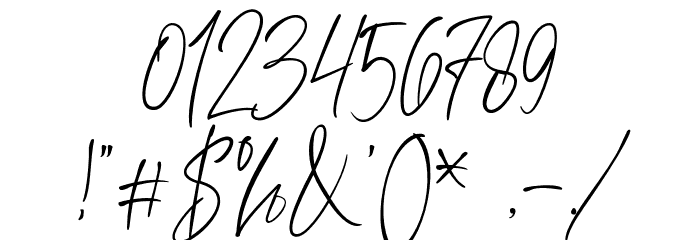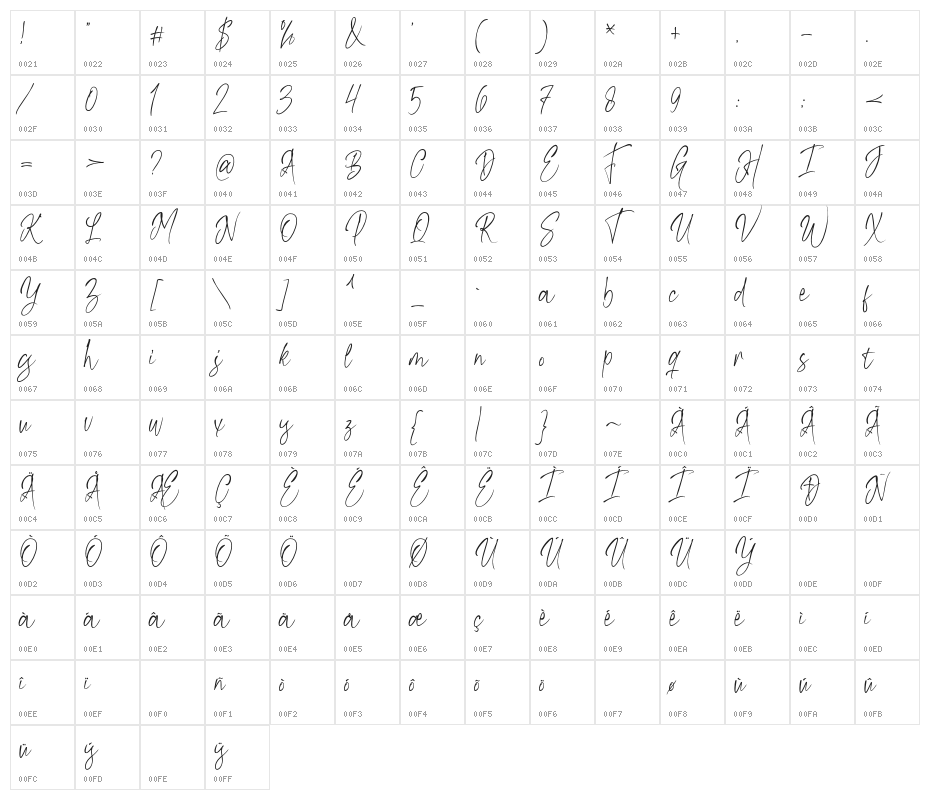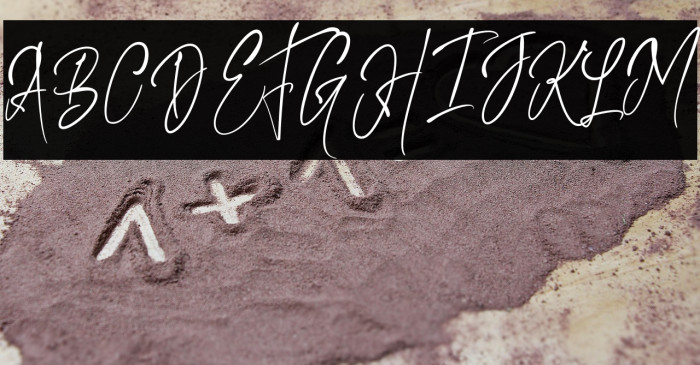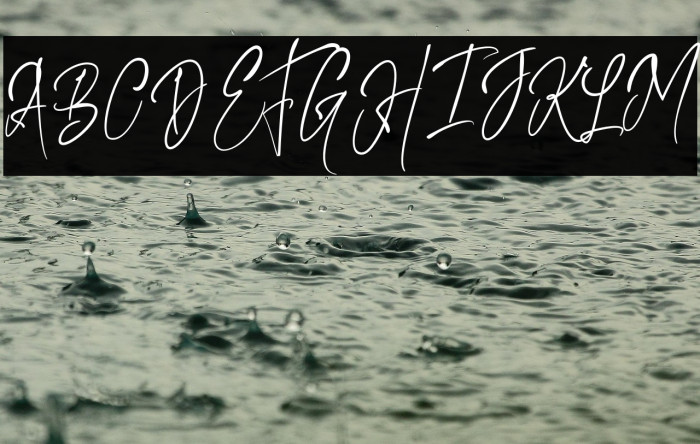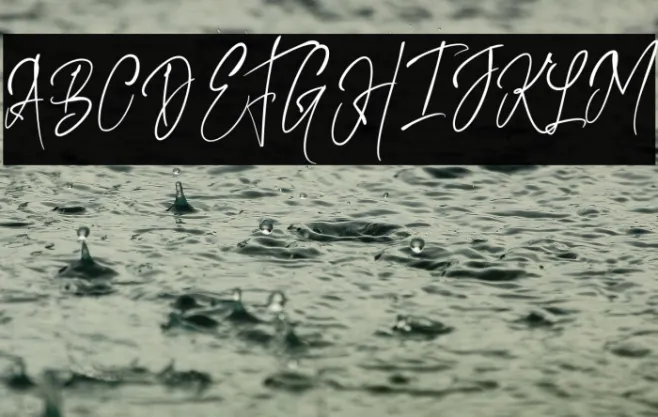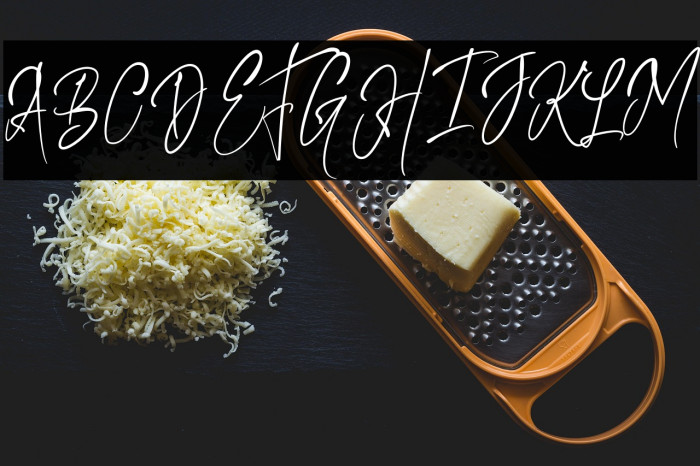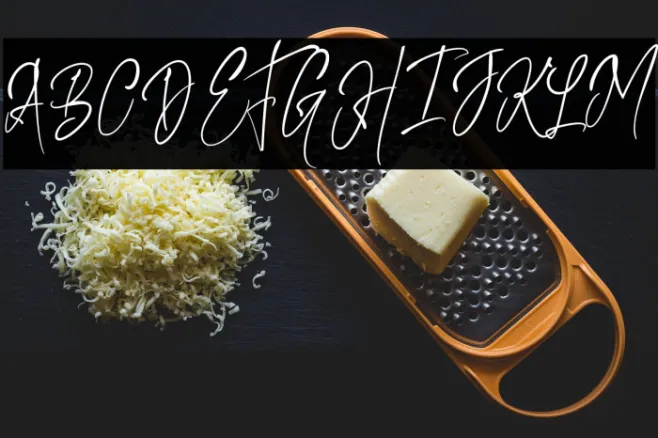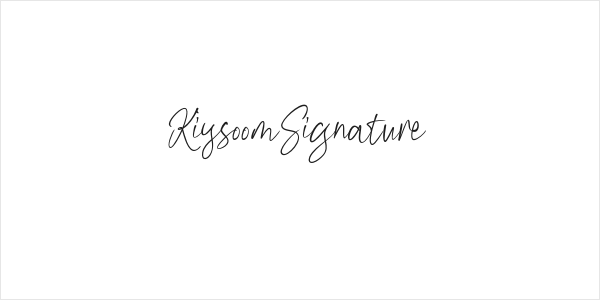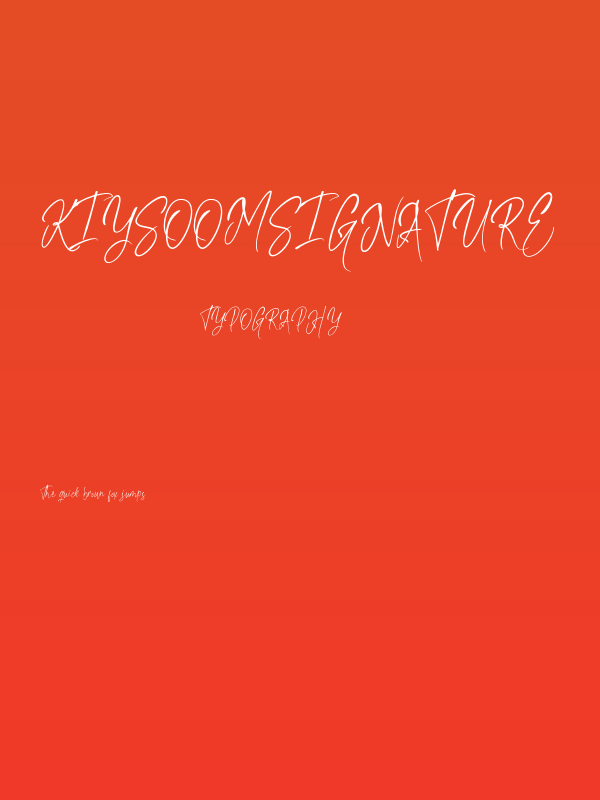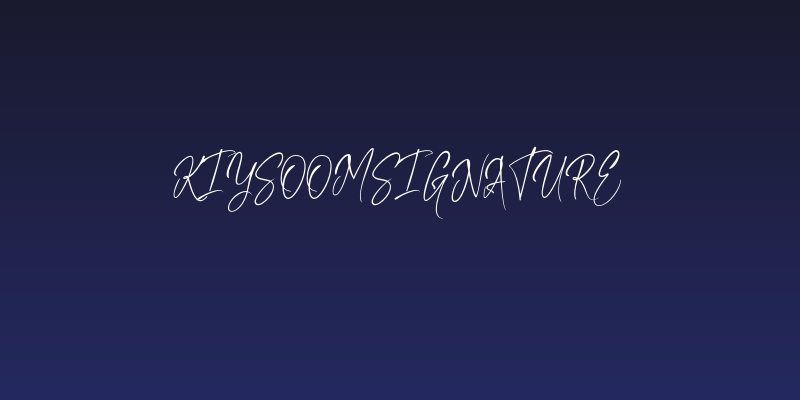
KiysoomSignature Font
KiysoomSignature Description
This font exudes a sophisticated and elegant handwritten style, characterized by its fluid and graceful strokes. The uppercase letters are tall and slightly slanted, giving a sense of movement and dynamism. The lowercase letters maintain a consistent flow, with loops and curves that mimic natural handwriting. The numerals are distinct and maintain the same flowing style, ensuring readability while adding a touch of flair. Special characters are seamlessly integrated, maintaining the overall aesthetic. This font is perfect for projects that require a personal and artistic touch, such as invitations, branding, and creative designs.
| Overall Style | Elegant, Artistic |